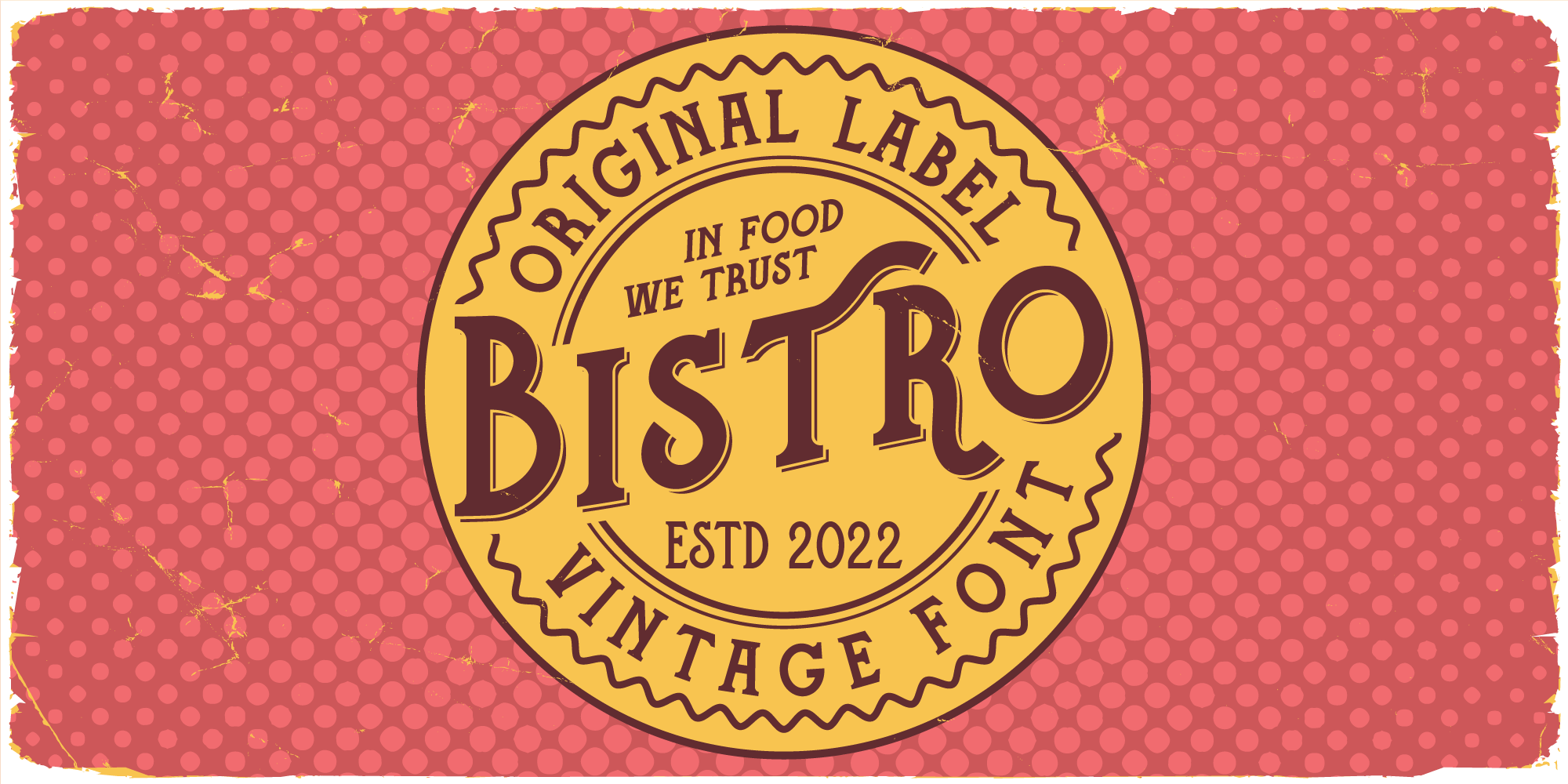
The Bistro Font is excellent for restaurant menus, cafe signage, food packaging, culinary magazines, wine labels, artisan bakery branding, gourmet food blogs, cooking class materials, and hospitality industry marketing. This charming typeface works beautifully in applications where warmth and culinary authenticity need to be communicated, making it perfect for establishments that want to create inviting atmospheres and connect with food lovers through appealing visual identity.
What makes Bistro Font exciting is its perfect capture of European cafe culture and artisanal food tradition that instantly evokes feelings of comfort and quality. The font's hand-crafted appearance and organic letterforms create an atmosphere of authenticity and culinary expertise, making it ideal for food businesses that want to emphasize their commitment to quality ingredients and traditional cooking methods. Its friendly character and approachable design make every application feel welcoming and appetizing.
The Bistro Font family typically includes regular, bold, and script variations, often featuring decorative elements, culinary symbols, and ornamental flourishes that enhance its gastronomic appeal. Many versions include extended character sets with international language support, allowing restaurants and food brands to maintain consistent branding across diverse markets and multilingual applications.
For designers working on food-related projects that require authentic charm and culinary credibility, Bistro Font Free Download delivers exceptional flavor. Its ability to instantly communicate quality and tradition makes it an invaluable asset for restaurants, food brands, and any project requiring typography that embodies the warmth and sophistication of fine dining culture.